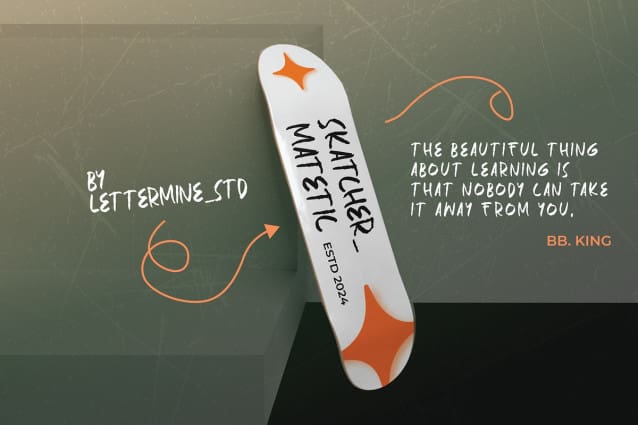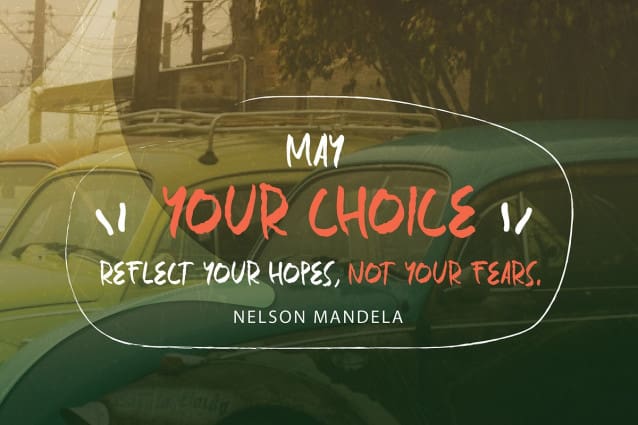
Estimatetic Brush Font
Estimatetic Brush Font is a striking brush handwritten font that commands attention with its bold, all-caps style. Each character is crafted with expressive brush strokes, delivering an edgy yet authentic feel to your designs. This font’s raw energy and distinctive style make it perfect for headlines, branding, and any project that calls for a touch of artistic boldness.